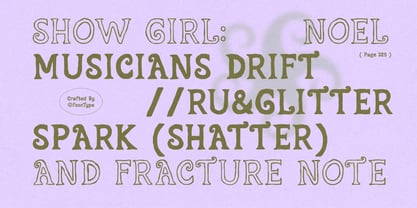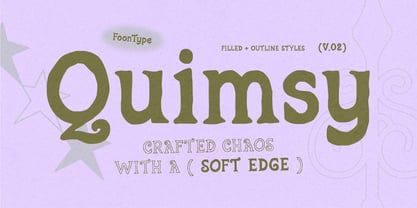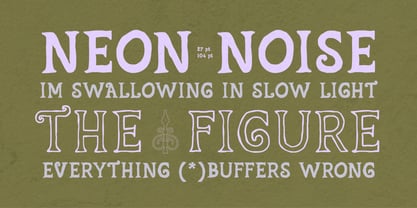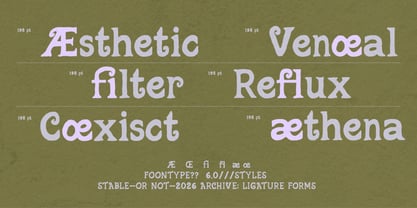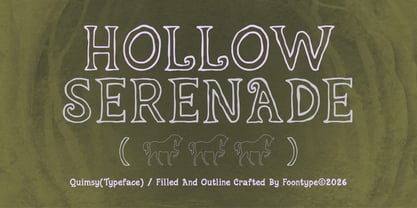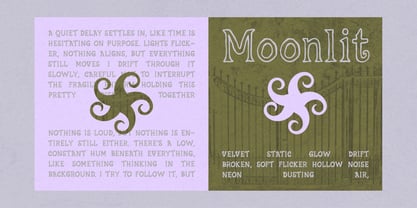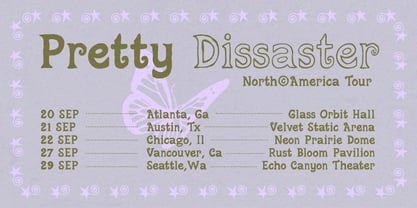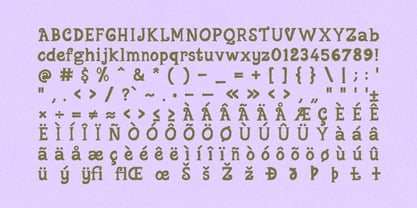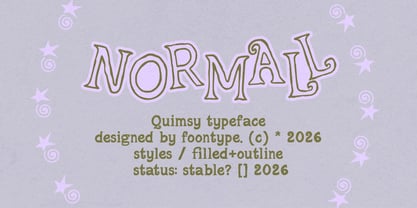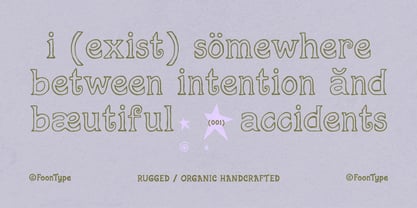
FN Quimsy
por Typefoon
La familia tipográfica FN Quimsy fue diseñada por Steve Laorence y publicada por Typefoon. FN Quimsy contiene 2 estilos y opciones de paquete familiar. Más información sobre esta familia
Quimsy is a quirky and expressive display font crafted with a playful handmade personality. Its bold, imperfect shapes and soft edges create a charming sense of crafted chaos, making every word feel unique, organic, and full of character. Perfect for posters, branding, packaging, editorial designs, social media, and playful creative projects that need a bold and memorable touch.